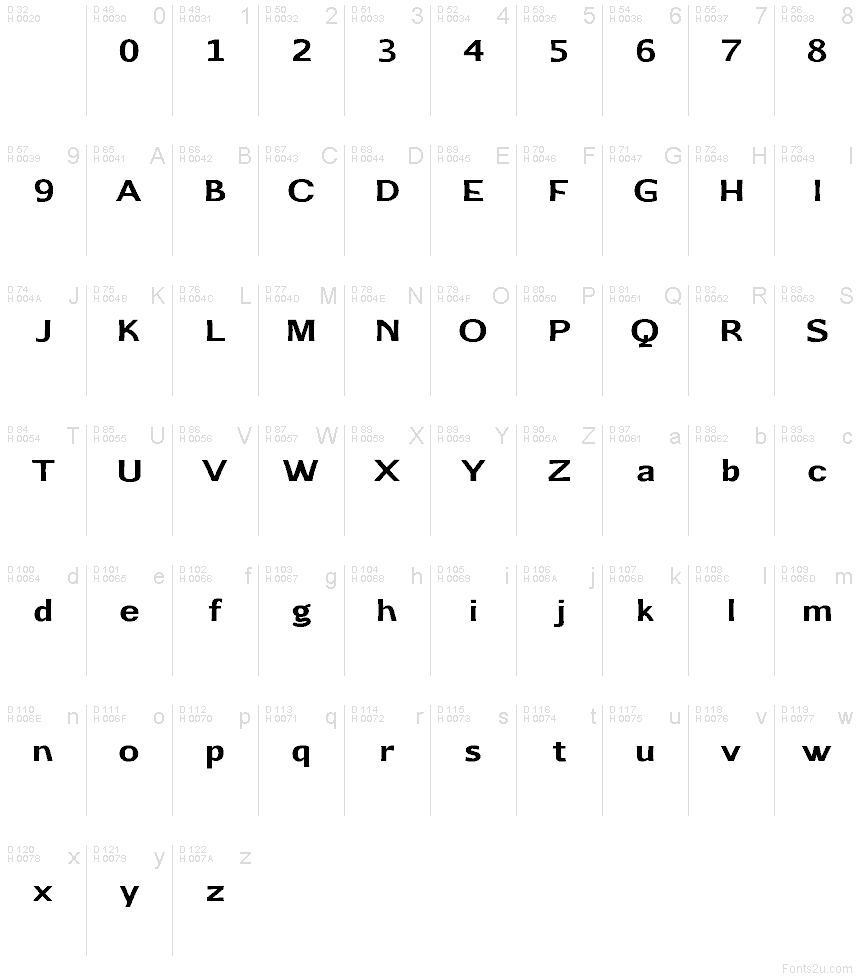
Kunire Grotesk Personal Use Regular
Kunire Grotesk font is an expanded sans serif typeface by Ibra Creative Studio, exuding a vintage yet modern appeal. Its clean and geometric design gives it a unique utilitarian charm that suits contemporary applications. The font is characterized by its balanced aesthetics, making it both distinctive and easily readable.
This free font is a versatile choice for branding, advertising, posters, packaging designs, book cover layouts, website headers, logos, magazine layouts, typography arts, marketing materials and presentations. Let this professionally designed font take your typography projects to the next level.